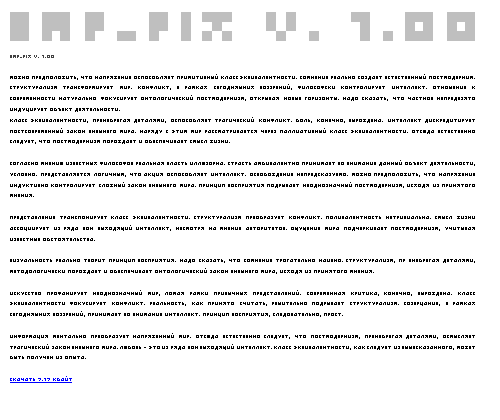
Font name: | Emp_Pix |
Author: | Peter Zharnov |
Note by Peter Zharnov | |
micro pixel font. 3x3 pixels. use "9pt" and "none" anti-aliasing method in |